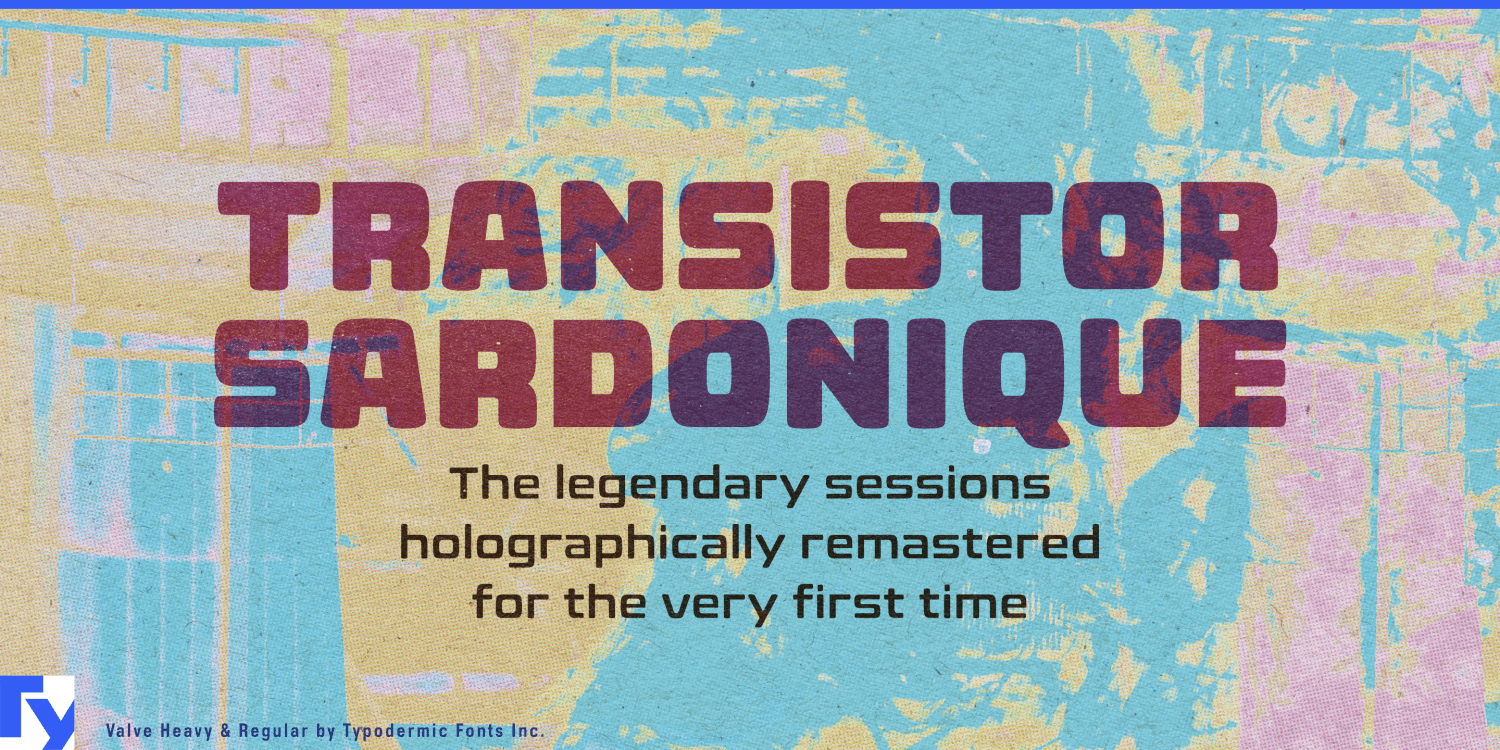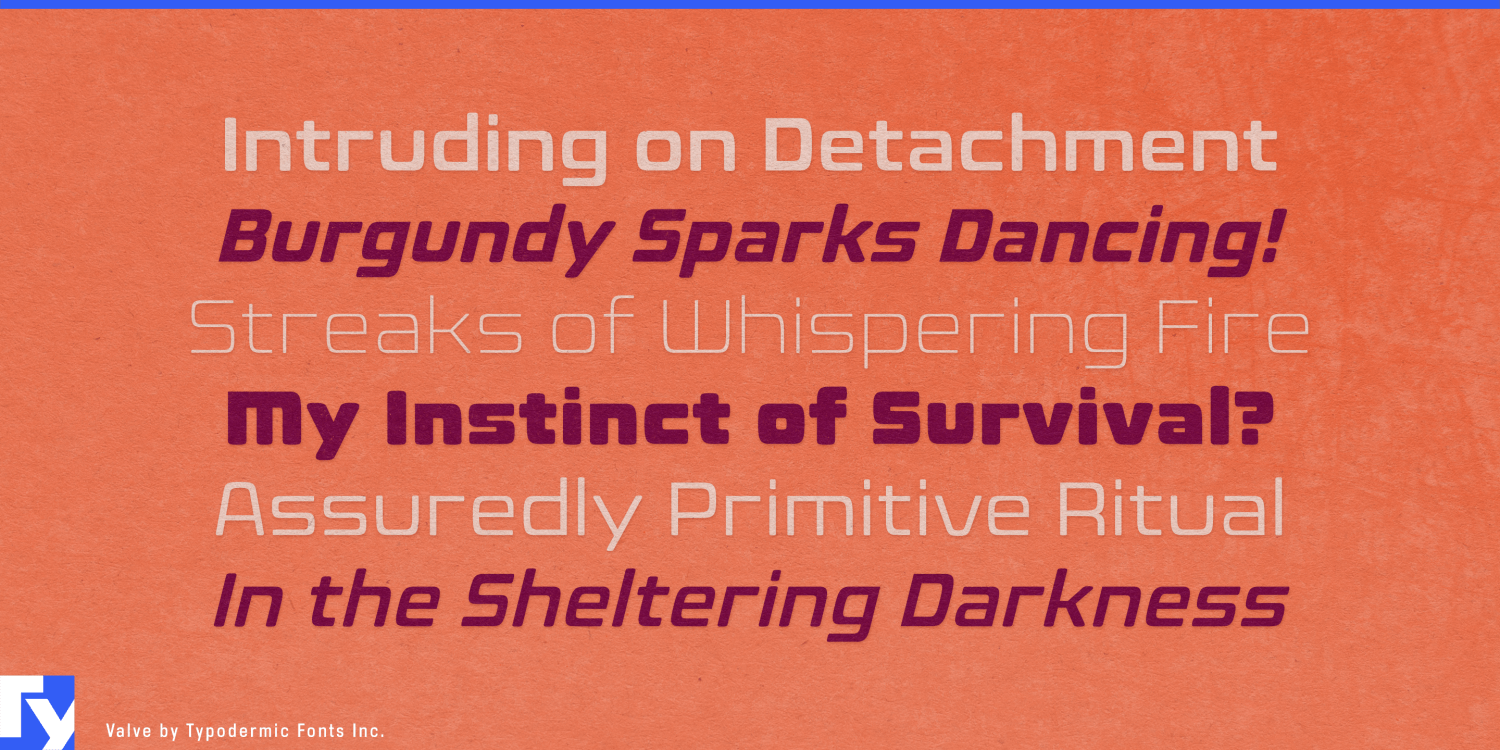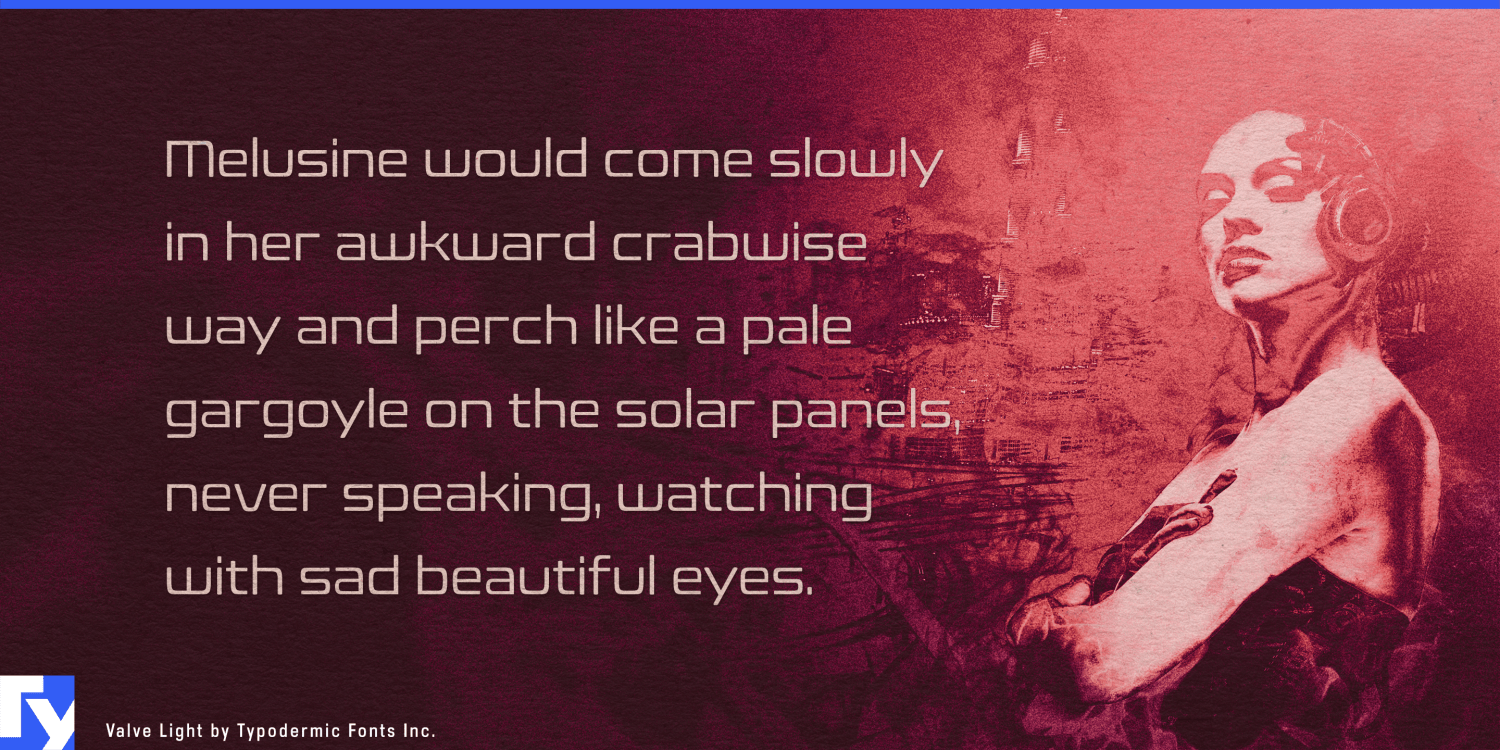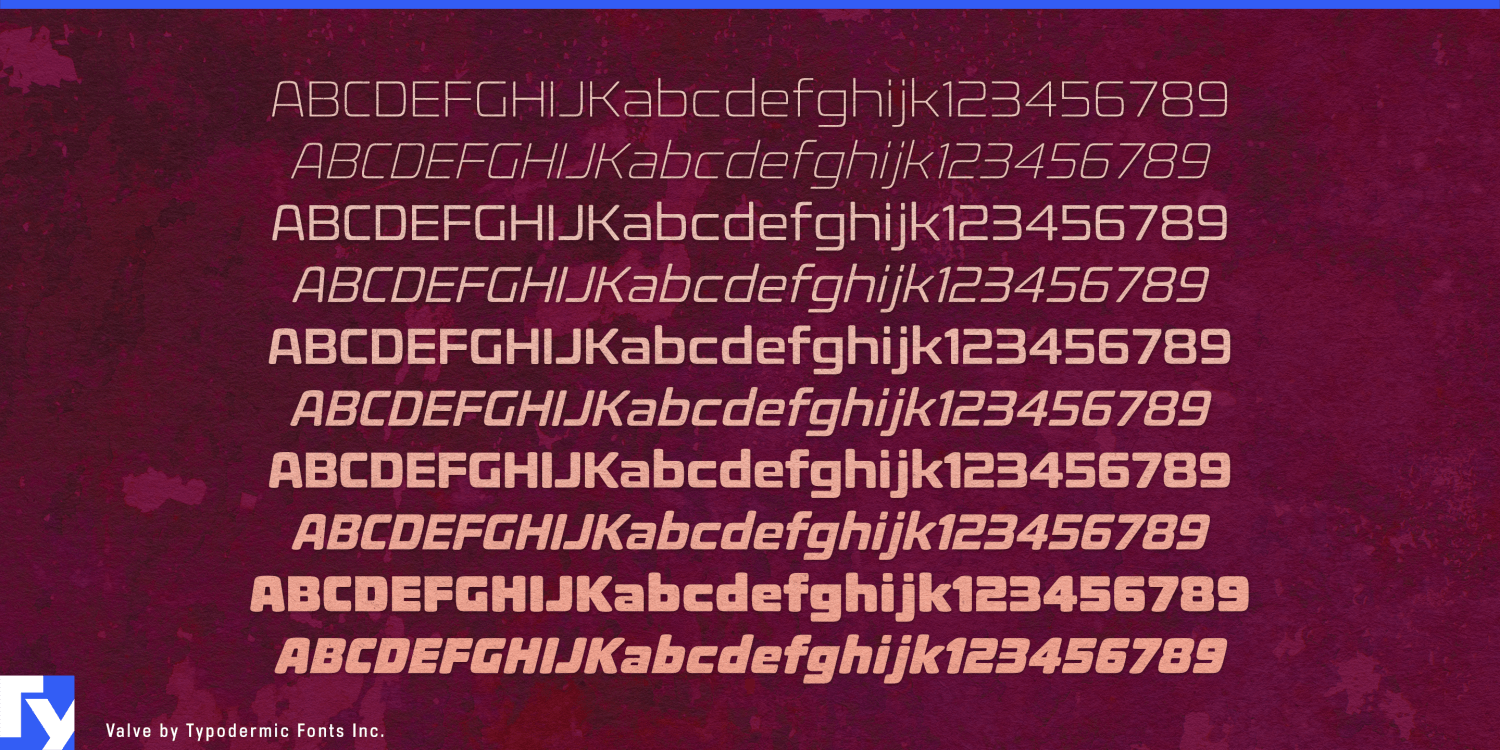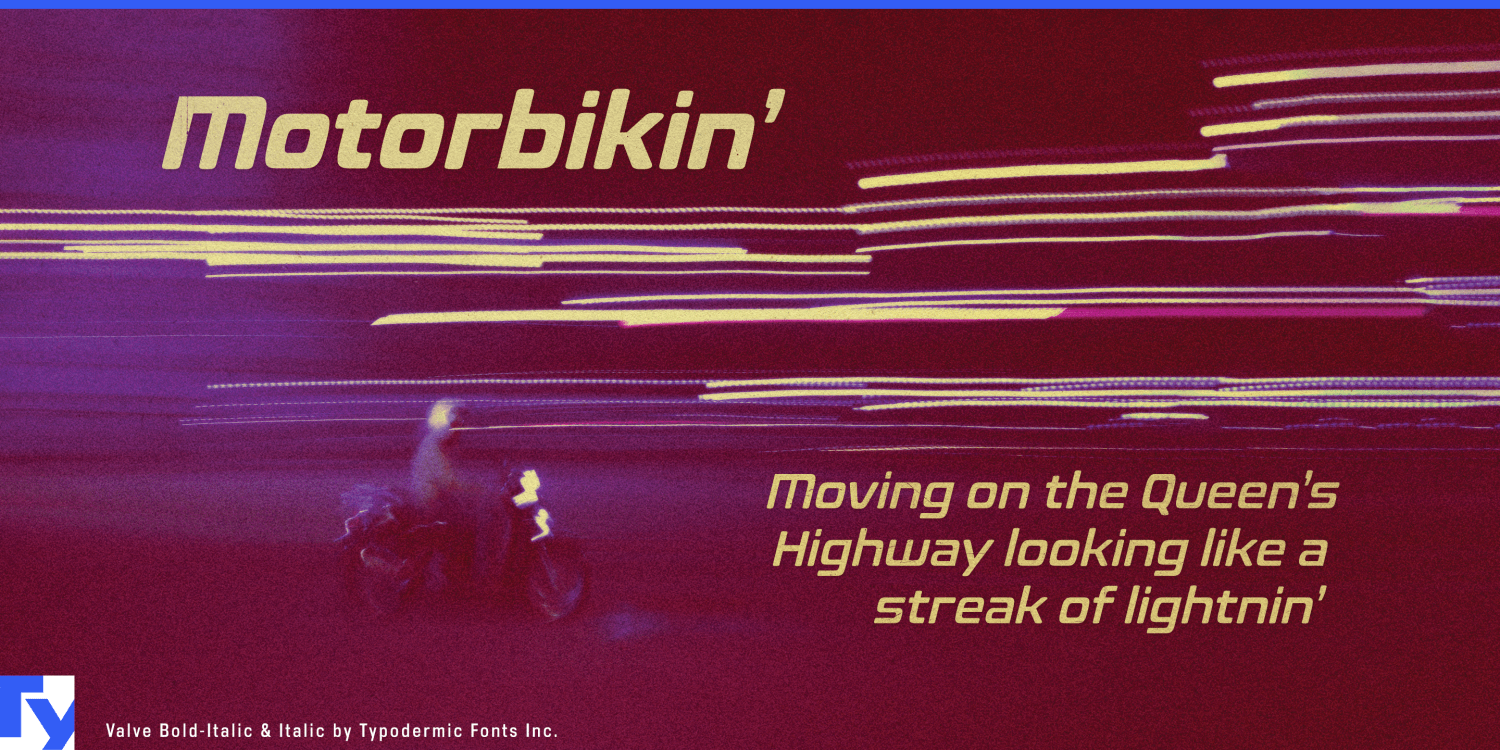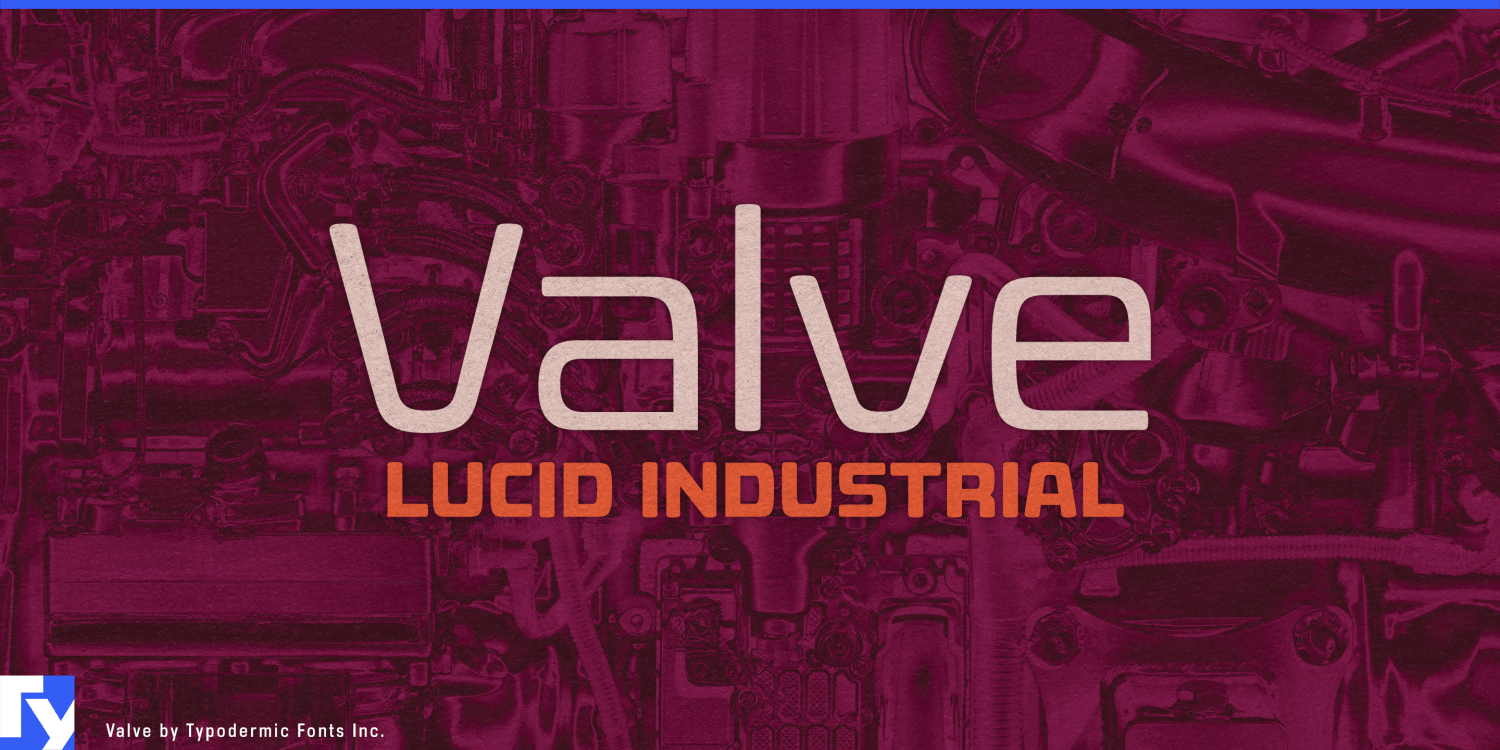
Valve
Valve: where precision meets innovation in typography. This industrial-strength typeface harnesses the power of superelliptical forms and pragmatic stroke logic to deliver a truly cutting-edge design experience. Engineered for the modern age, Valve speaks…